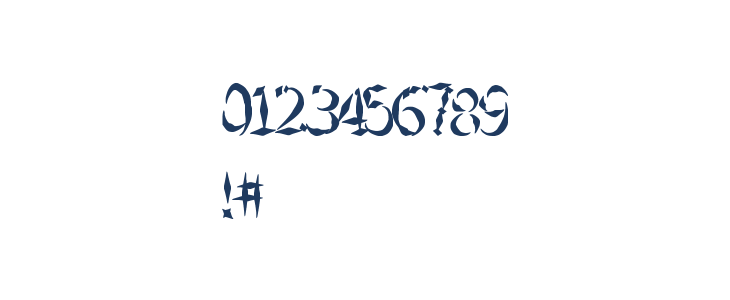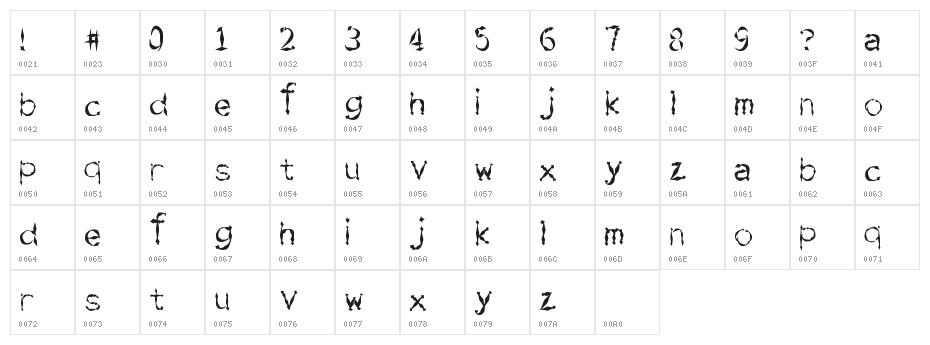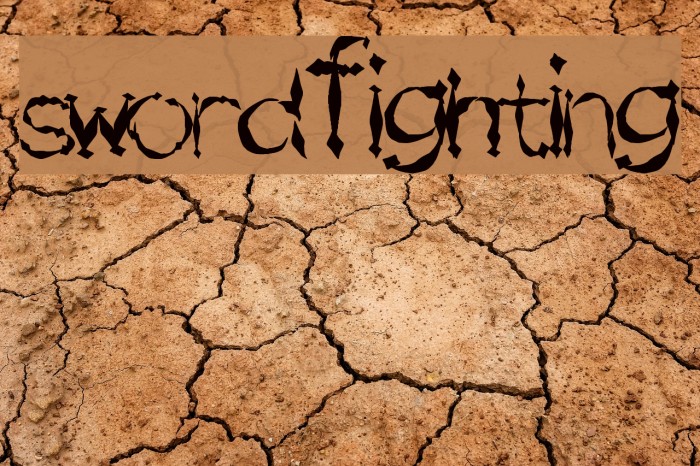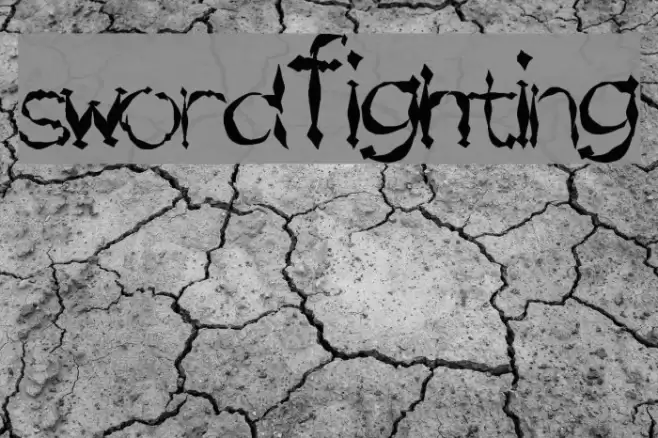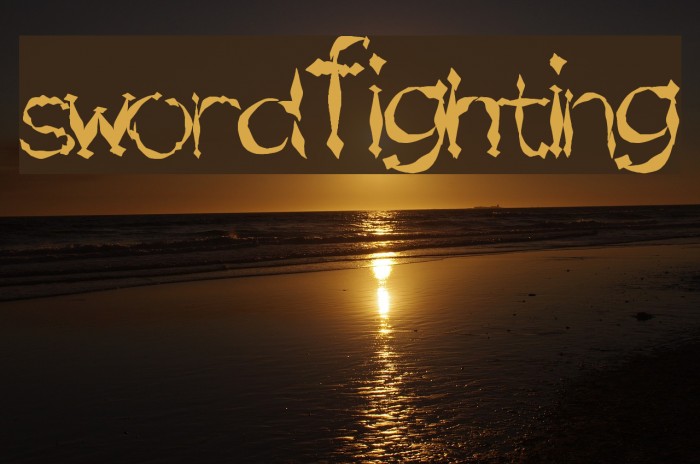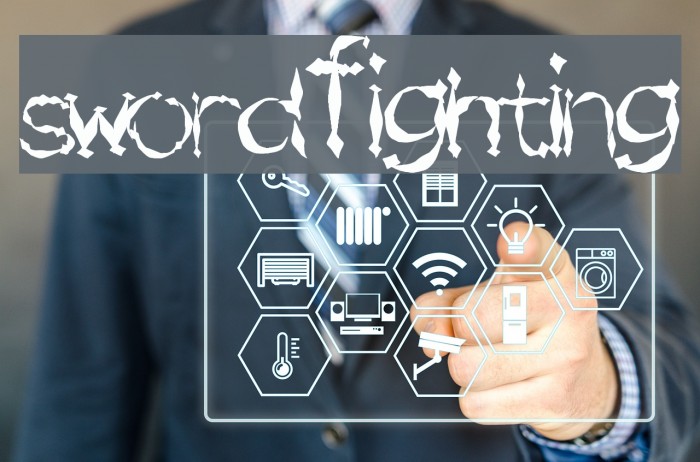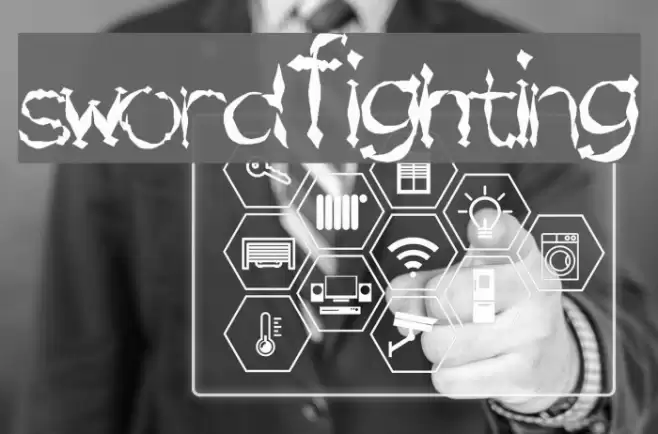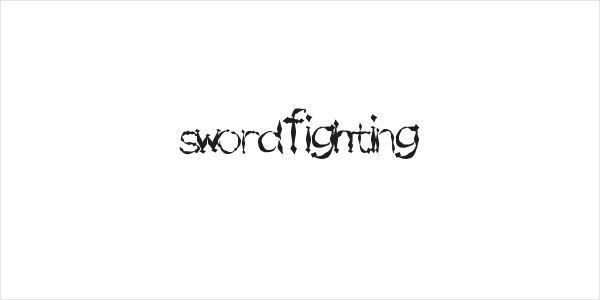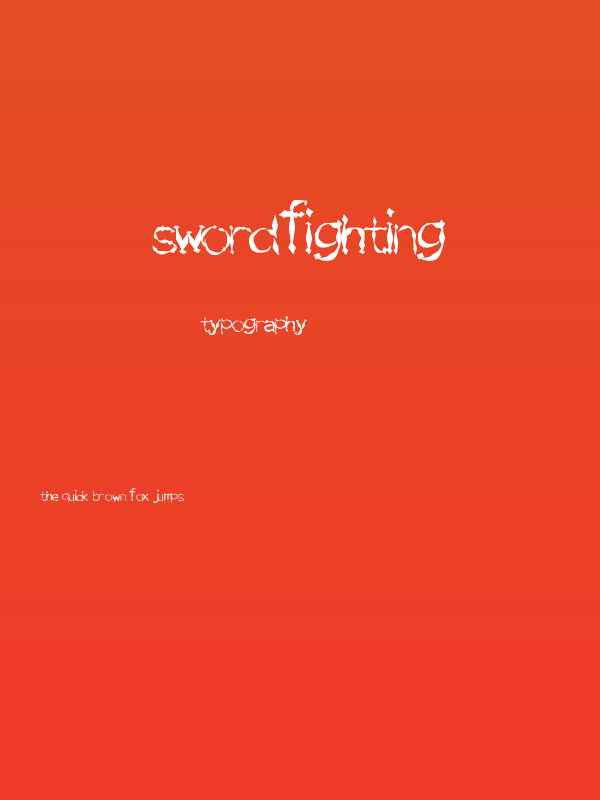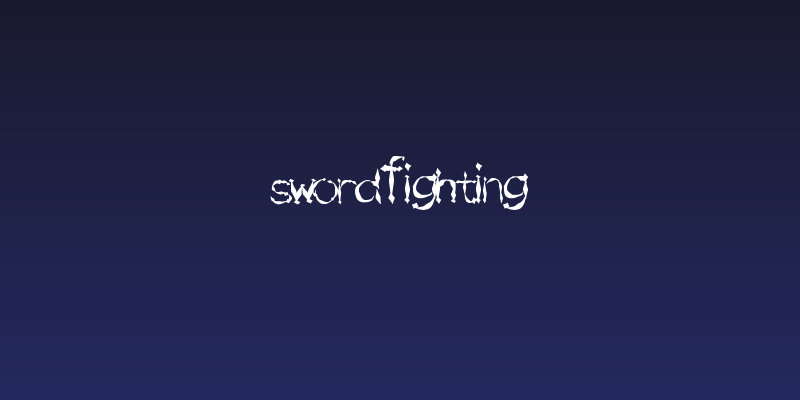
SwordFighting Font
SwordFighting Description
This font features a unique, jagged design that mimics the appearance of torn paper or sharp blades. Each character is crafted with irregular edges, giving it a dynamic and aggressive look. The style is reminiscent of medieval or fantasy themes, making it ideal for projects that require a bold and adventurous aesthetic. The uppercase and lowercase letters maintain a consistent style, with numbers and special characters following the same design principles. The font's distinct appearance makes it stand out, capturing attention with its edgy and unconventional form.